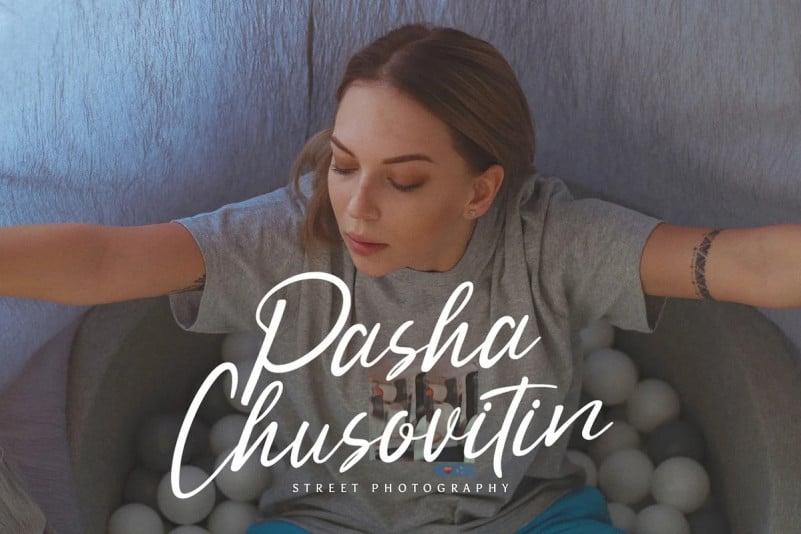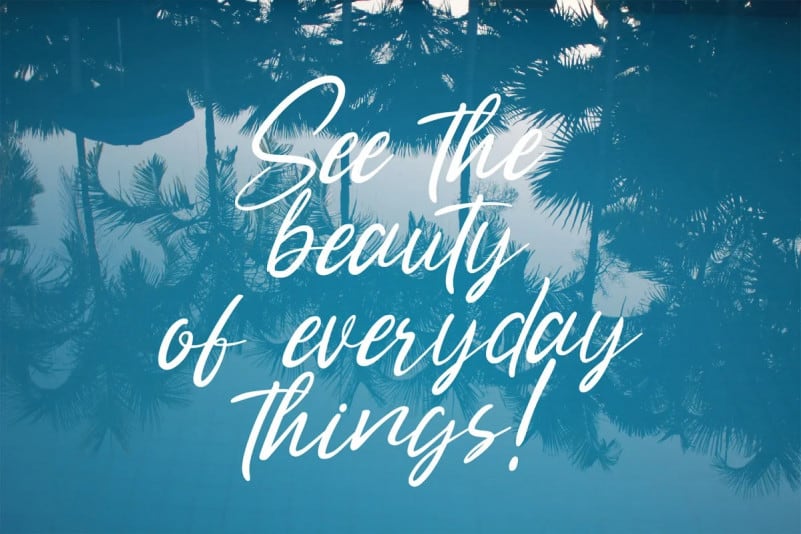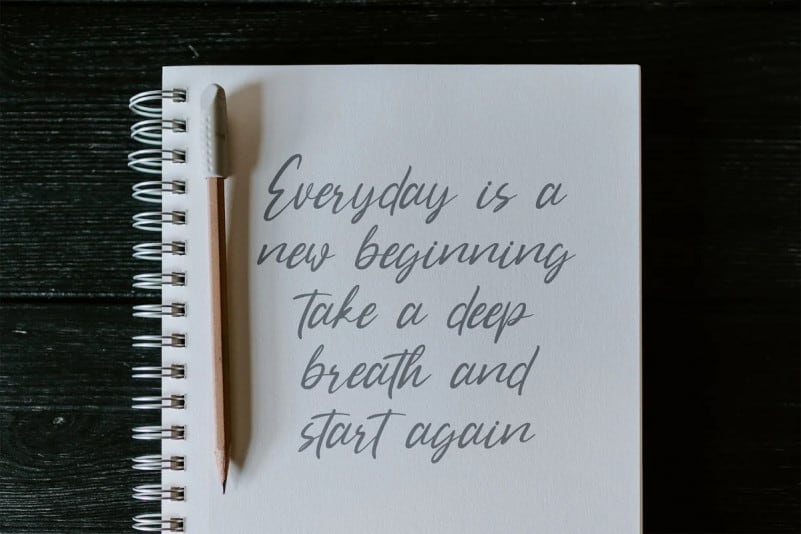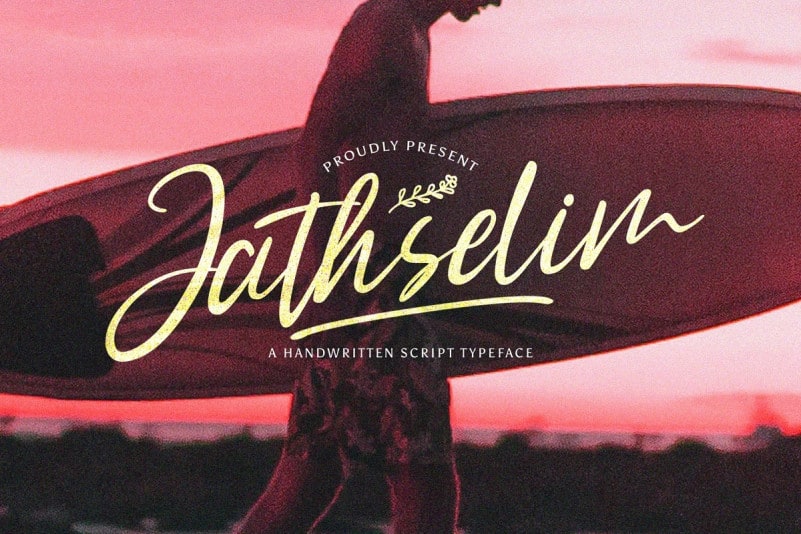
Jathselim Script Font is a handwritten cursive typeface manufactured by StringLabs. A little messy & signature-like, Small Things is perfect for your next simple project. It has beautiful and well balanced characters and as a result, it matches a wide pool of designs. Add it to your most creative ideas and notice how it makes them come alive!